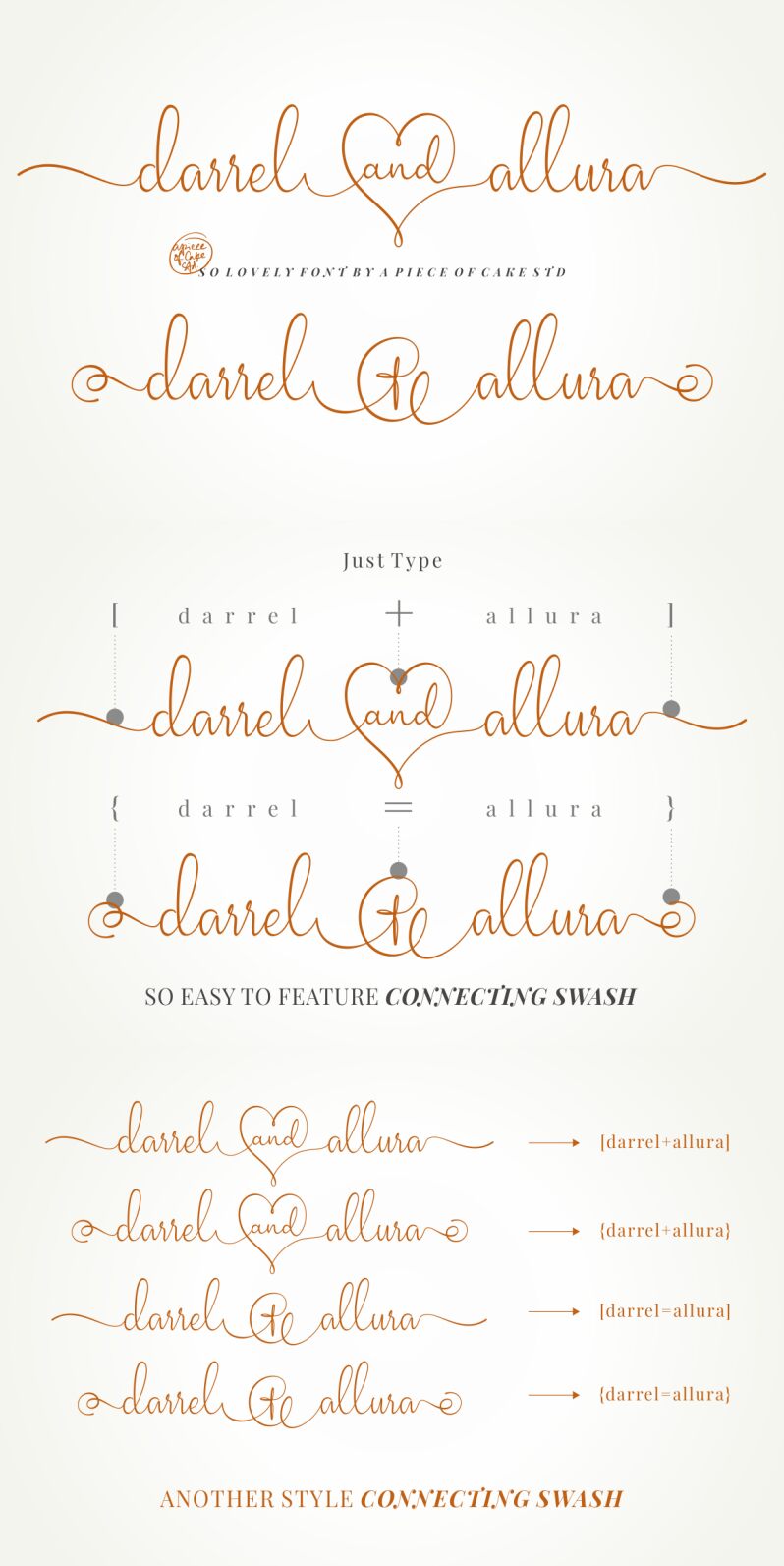
Meet Darrel Allura, the extra-light and semi-condensed handwritten font that adds a touch of sophistication to any project. Designed by A Piece Of Cake Std, this font is perfect for creating elegant invitations, greeting cards, and branding materials. Its delicate strokes and curves create a unique look that stands out from the rest. Use Darrel Allura for your wedding invitations or on your blog's logo to add a personal touch. This versatile font will elevate any design to the next level with its effortless beauty.
According to the name of the studio, our fonts are very easy to use in all softwares and apps. Whether it's software that supports Opentype Feature or not, both can access special characters/glyphs.
Access it simply by using the keyboard.
Press key bracketleft ' [ ' --- for first beginning swash
Press key braceleft ' { ' --- for second beginning swash
Press key plus ' + ' --- for first love connecting swash
Press key equal ' = ' --- for second love connecting swash
Press key bracketright ' ] ' --- for first ending swash
Press key braceright ' } ' --- for second ending swash
Example: [darrel+allura] or {darrel=allura}